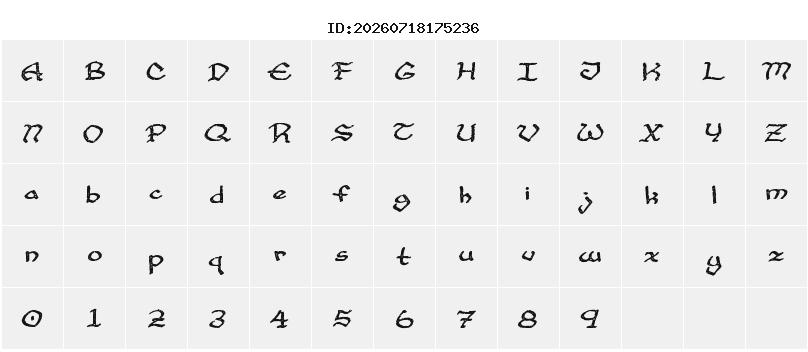
• Font Name: Cup and Talon
• Designer: S. John Ross
• Description: A mediocre bit of hand-drawn calligraphy made more interesting and useful with expert stressing.